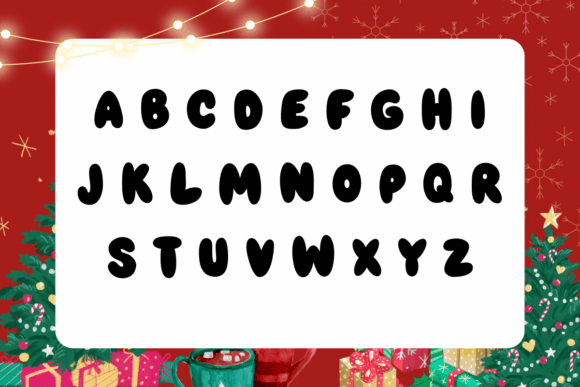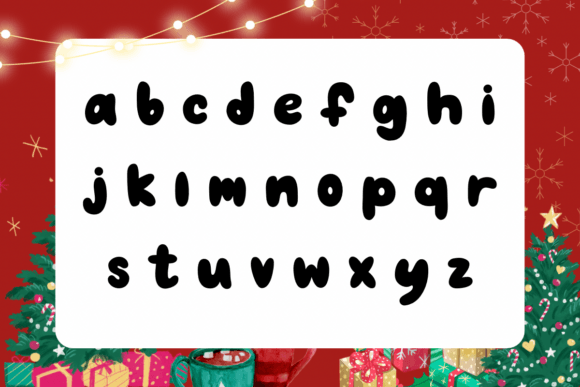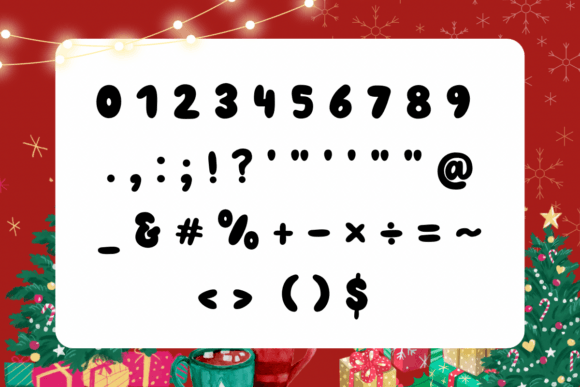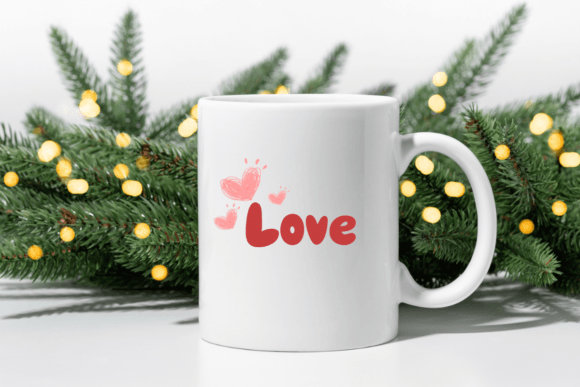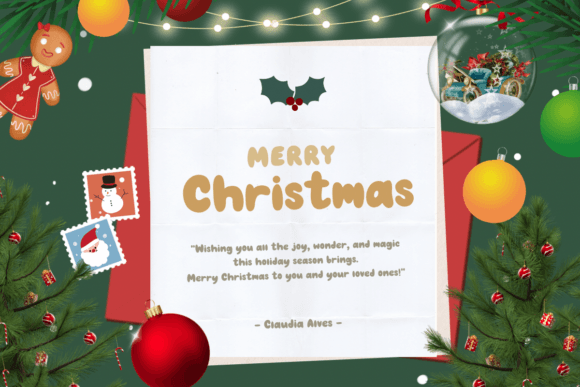
Introducing Christmas Day Font: The Perfect Addition to Your Holiday Designs
Are you looking for a font that captures the essence of the holiday season? Look no further than Christmas Day Font! This bold and bubbly font is designed to bring a touch of festive fun to your Christmas-themed projects. With its big, soft letters, Christmas Day Font is the perfect way to add a cheerful and warm look to your designs.
The Perfect Font for Holiday Designs
Christmas Day Font is specifically designed with holiday designs in mind. Its playful style makes it perfect for use in a variety of projects, from Christmas cards and invitations to holiday-themed posters and social media graphics. Whether you’re a designer, crafter, or simply someone who loves the holiday season, Christmas Day Font is sure to become a favorite addition to your font collection.
Key Features of Christmas Day Font
- Bold and Bubbly: Christmas Day Font features big, soft letters that are sure to grab attention.
- Playful Style: The font’s playful style makes it perfect for holiday designs that require a fun and festive touch.
- Easy to Read: Despite its bold and bubbly style, Christmas Day Font is easy to read, making it perfect for use in a variety of projects.
- Versatile: Christmas Day Font can be used in a variety of projects, from digital designs to print materials.
How to Use Christmas Day Font in Your Designs
Using Christmas Day Font in your designs is easy! Here are a few ideas to get you started:
- Christmas Cards and Invitations: Use Christmas Day Font to create festive and fun Christmas cards and invitations.
- Holiday Posters and Graphics: Add a touch of holiday cheer to your posters and graphics with Christmas Day Font.
- Social Media Graphics: Use Christmas Day Font to create festive and engaging social media graphics.
- Crafting Projects: Christmas Day Font is perfect for use in a variety of crafting projects, from scrapbooking to card making.
Tips for Getting the Most Out of Christmas Day Font
Here are a few tips for getting the most out of Christmas Day Font:
- Experiment with Colors: Christmas Day Font looks great in a variety of colors, so don’t be afraid to experiment and find the perfect color for your design.
- Pair with Other Fonts: Christmas Day Font pairs well with a variety of other fonts, so try pairing it with a serif or script font for a unique look.
- Use in Combination with Images: Christmas Day Font looks great in combination with images, so try using it to add a touch of festive cheer to your holiday photos and illustrations.